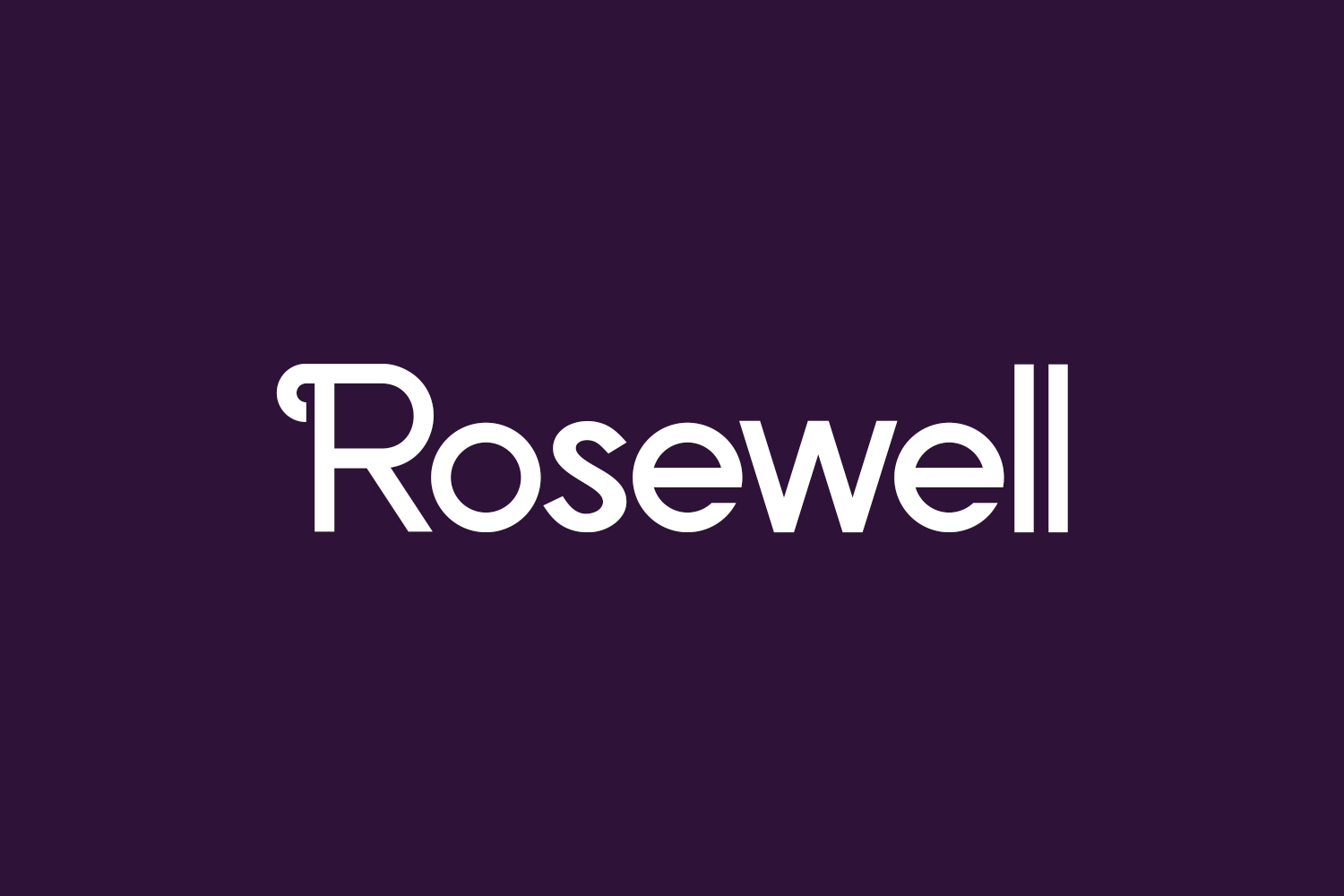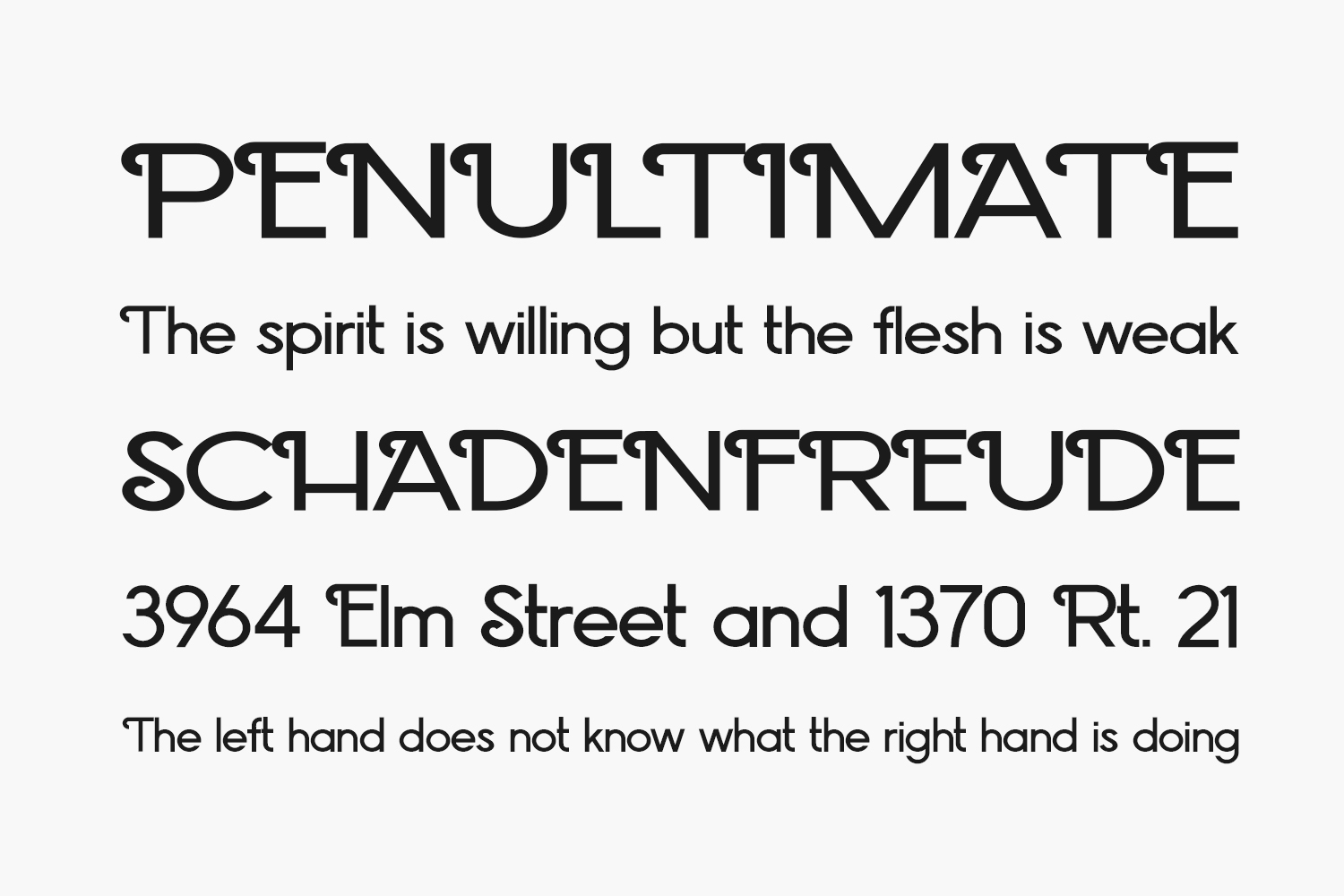
Rosewell Free Font is whimsical and unique, exuding playful and charming energy. Its unusual and distinctive sans-serif design gives it a quirky and offbeat look, making it perfect for creating fun and creative design projects. The font’s fluid lines and curving shapes convey a sense of freedom and creativity, inspiring feelings of playfulness and wonder. Its unique and playful design gives it a touch of character and personality, making it stand out and perfect for projects that require a touch of humor and quirkiness.